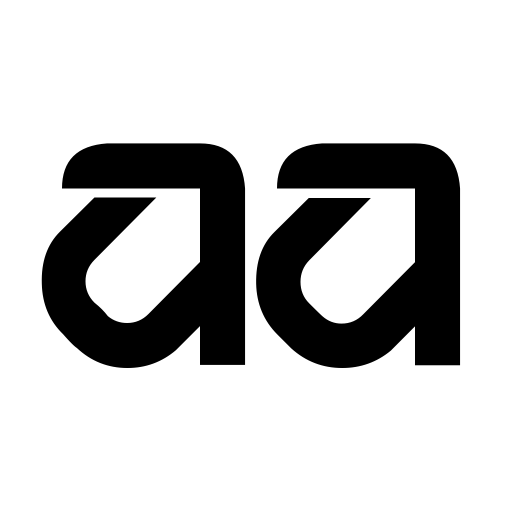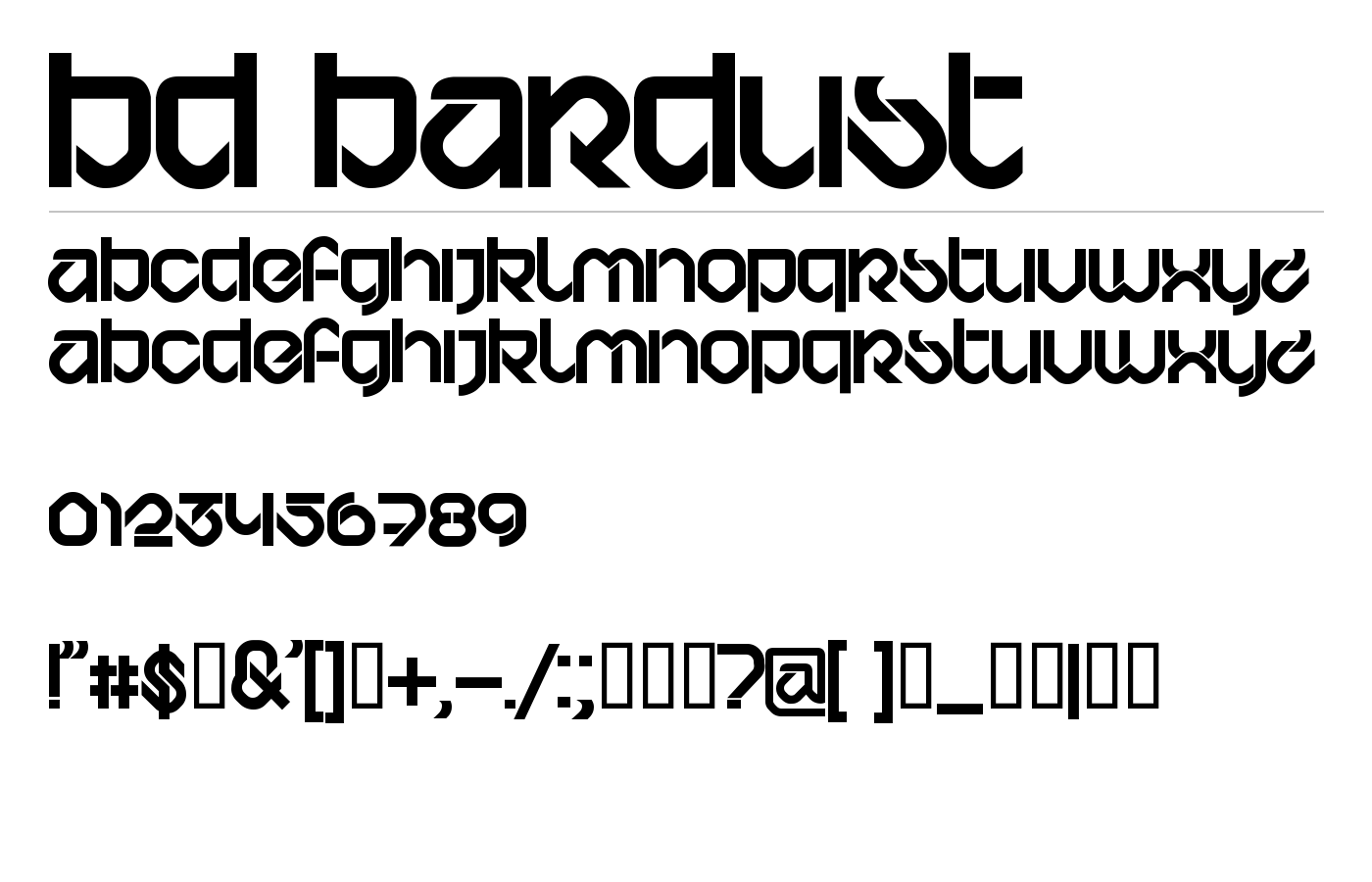
BD Bardust is a bold, geometric sans serif font with a futuristic and tech-inspired style. Its clean, angular letterforms and consistent stroke weight give it a modern, industrial feel, making it perfect for eye-catching headlines, branding, and designs that want to convey innovation and strength. This font works well in digital and print projects where a strong, contemporary look is desired.
BD Bardust Font
About BD Bardust Font